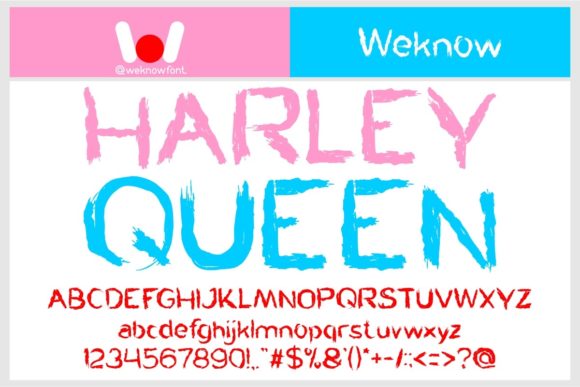
Introducing Harley Queen Font: The Ultimate Display Font for Creative Projects
Are you a designer or crafter looking for a unique and eye-catching font to elevate your creative projects? Look no further than the Harley Queen Font, a rough textured and cool display font that’s perfect for a wide range of applications. In this article, we’ll explore the features and benefits of Harley Queen Font, and show you how to make the most of this versatile and stylish font.
What is Harley Queen Font?
Harley Queen Font is a display font designed to add a touch of edginess and sophistication to your designs. With its rough textured and cool aesthetic, this font is perfect for creating bold and eye-catching headlines, logotypes, and titles. Whether you’re working on a corporate identity, brand identity, or creative project, Harley Queen Font is sure to make a statement.
Key Features of Harley Queen Font
So, what makes Harley Queen Font so special? Here are some of its key features:
• Rough Textured Design: Harley Queen Font features a unique rough textured design that gives it a distinctive and edgy look.
• Cool Display Font: This font is designed to be used as a display font, making it perfect for headlines, titles, and logotypes.
• Versatile: Harley Queen Font can be used for a wide range of applications, including corporate identity, brand identity, apparel industry, poster, music, movie, game, magazine, book, comic, cartoon, YouTube, Instagram, website, or any other creative design project.
Use Cases for Harley Queen Font
So, how can you use Harley Queen Font in your creative projects? Here are some ideas to get you started:
• Logotype and Branding: Use Harley Queen Font to create a bold and eye-catching logotype that sets your brand apart.
• Headlines and Titles: Use this font to create attention-grabbing headlines and titles for your posters, flyers, and brochures.
• Apparel Industry: Harley Queen Font is perfect for creating bold and stylish designs for t-shirts, hoodies, and other apparel.
• Music and Movie: Use this font to create eye-catching posters and titles for music albums, movies, and games.
• Digital Media: Harley Queen Font can be used to create engaging and stylish content for YouTube, Instagram, and other social media platforms.
Benefits of Using Harley Queen Font
So, why should you choose Harley Queen Font for your creative projects? Here are some benefits of using this font:
• Unique and Eye-Catching: Harley Queen Font is a unique and eye-catching font that will help your designs stand out from the crowd.
• Versatile: This font can be used for a wide range of applications, making it a great addition to your font library.
• Easy to Read: Despite its rough textured design, Harley Queen Font is easy to read and understand, making it perfect for use in headlines and titles.
Tips for Using Harley Queen Font
Here are some tips for getting the most out of Harley Queen Font:
• Use it as a Display Font: Harley Queen Font is designed to be used as a display font, so use it to create bold and eye-catching headlines and titles.
• Experiment with Colors: This font looks great in a range of colors, so experiment with different colors to find the one that works best for your design.
• Pair it with Other Fonts: Harley Queen Font can be paired with other fonts to create a unique and stylish design.
Font Name Harley Queen Font
Author weknow
In conclusion, Harley Queen Font is a unique and versatile display font that’s perfect for a wide range of creative projects. With its rough textured and cool aesthetic, this font is sure to add a touch of edginess and sophistication to your designs. Whether you’re a designer or crafter, Harley Queen Font is a great addition to your font library.